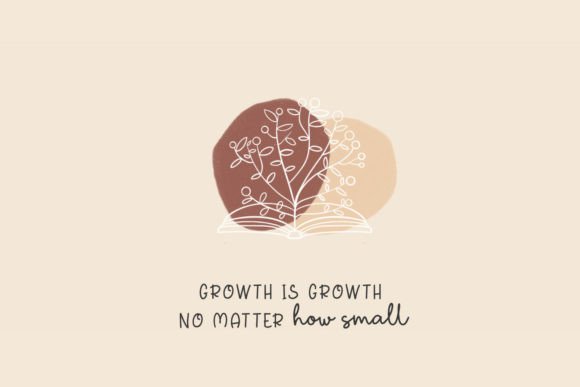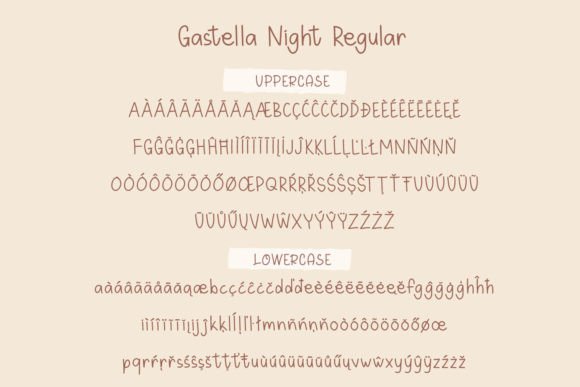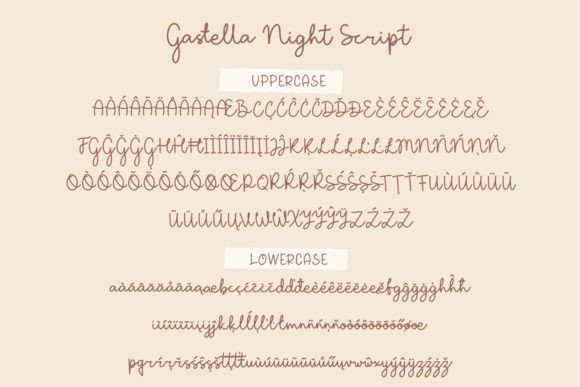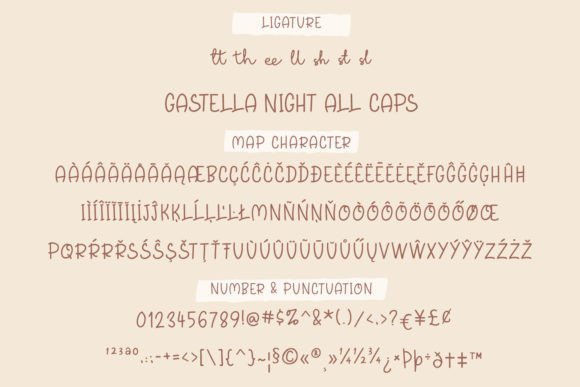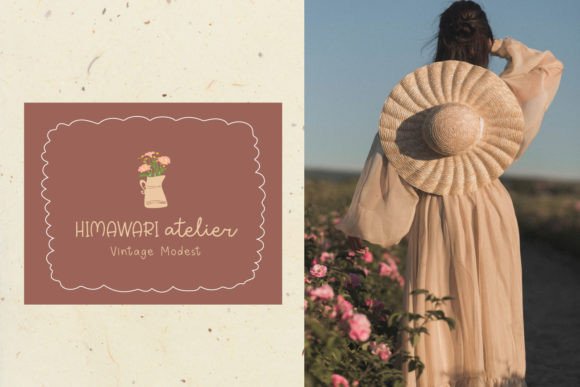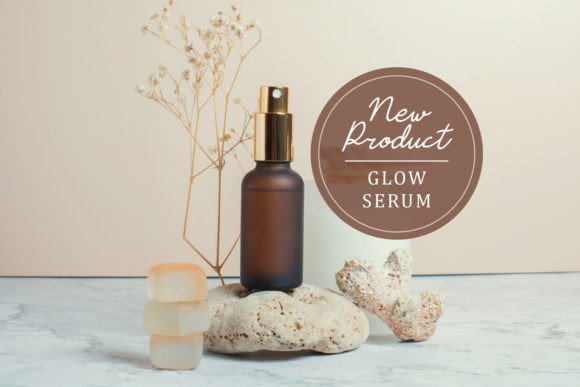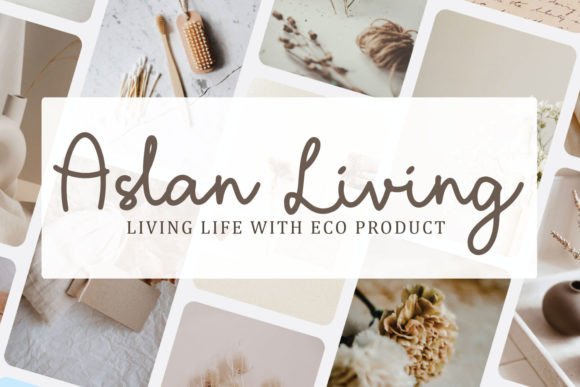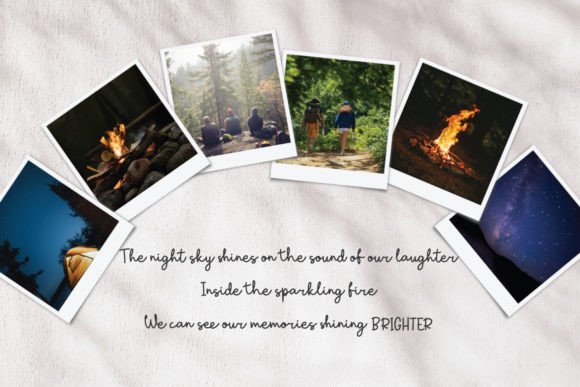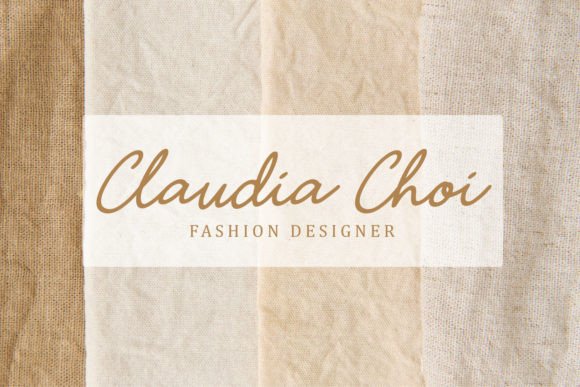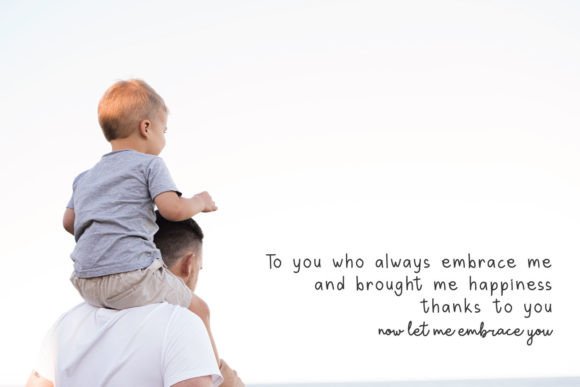
Gastella Night Font
About Gastella Night Font
“Gastella Night” is a fun and unique handwritten font family crafted to be a standout favorite. With its distinctive design, this font family has the potential to elevate each of your creative ideas to the highest level, making it a versatile and playful choice for a variety of projects.
The fun and unique qualities of “Gastella Night” make it well-suited for creative endeavors that require a touch of personality and whimsy. Whether you’re working on branding, social media graphics, or any other design project, this font family is designed to infuse a sense of fun and creativity.
The handwritten style of “Gastella Night” adds a personal and casual touch to your text, making it approachable and engaging for the audience. Its versatility allows it to adapt seamlessly to different design contexts, making it a valuable asset in your creative toolkit.
The unique design elements in this font family contribute to its playful and distinctive appearance. It’s perfect for projects that demand a font with character and a touch of quirkiness.
In summary, “Gastella Night” is more than just a font family; it’s a creative tool designed to make your designs fun and unique. Its playful and handwritten style adds a level of creativity and personality that resonates with a wide range of creative projects.